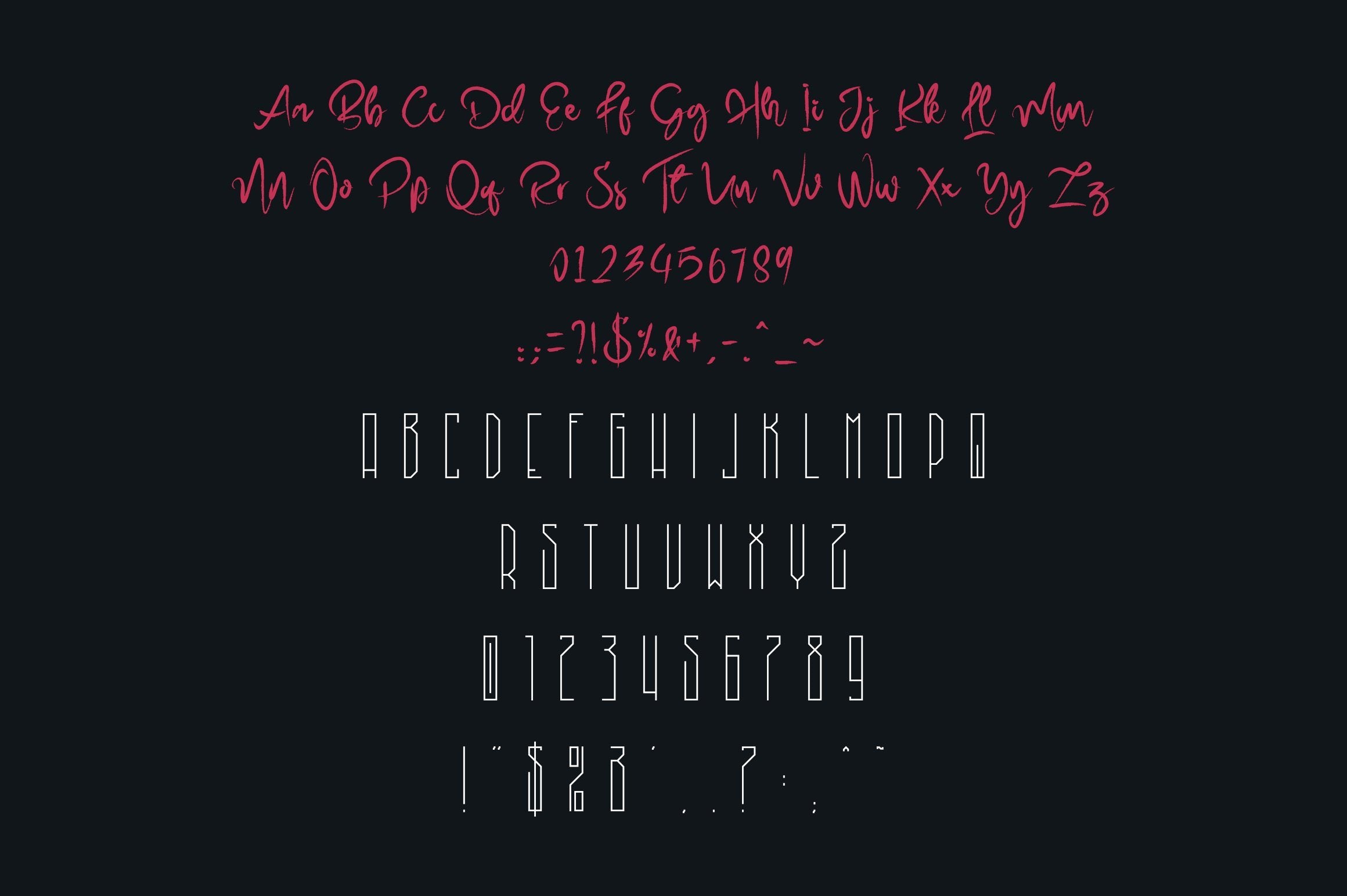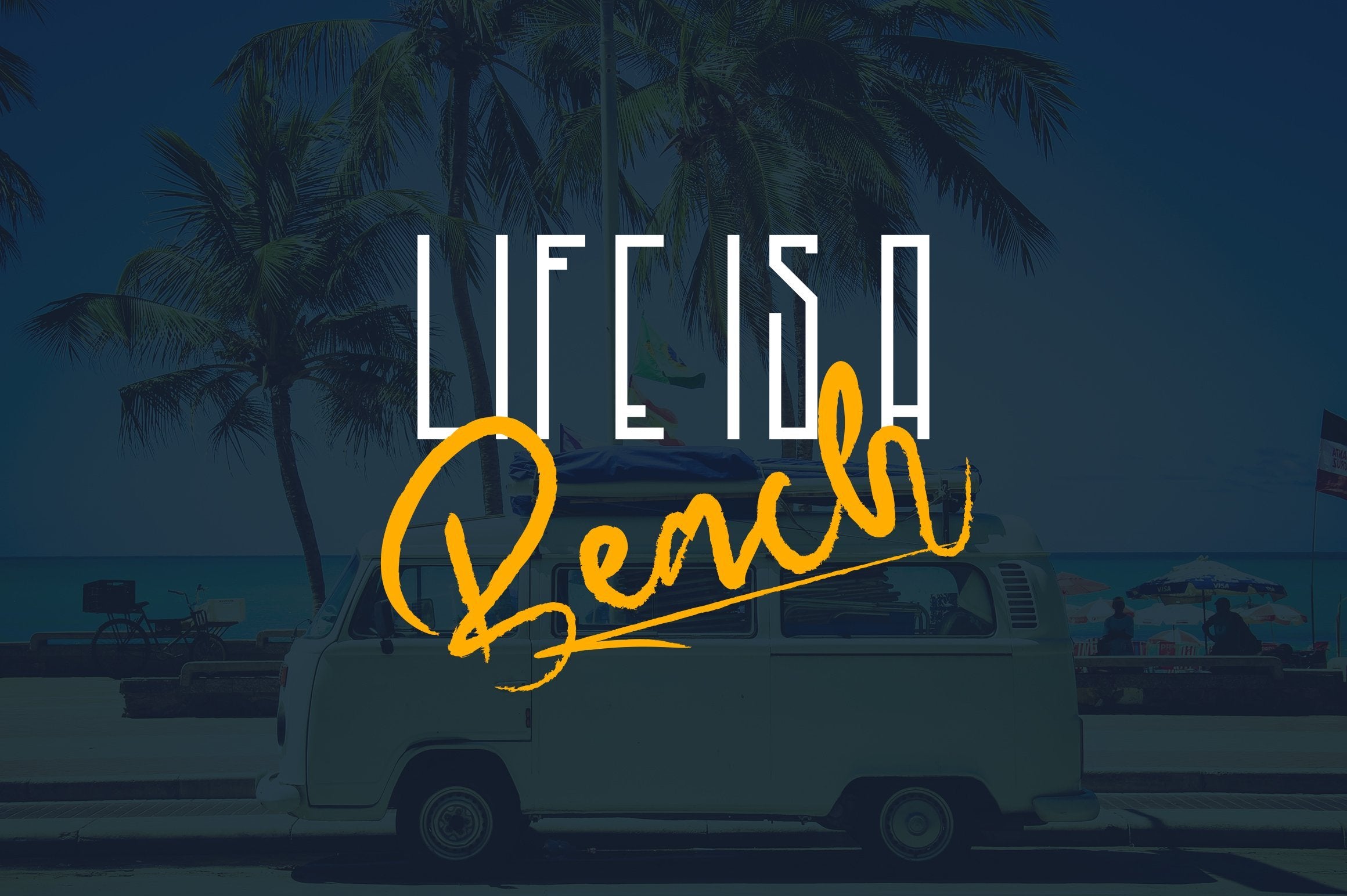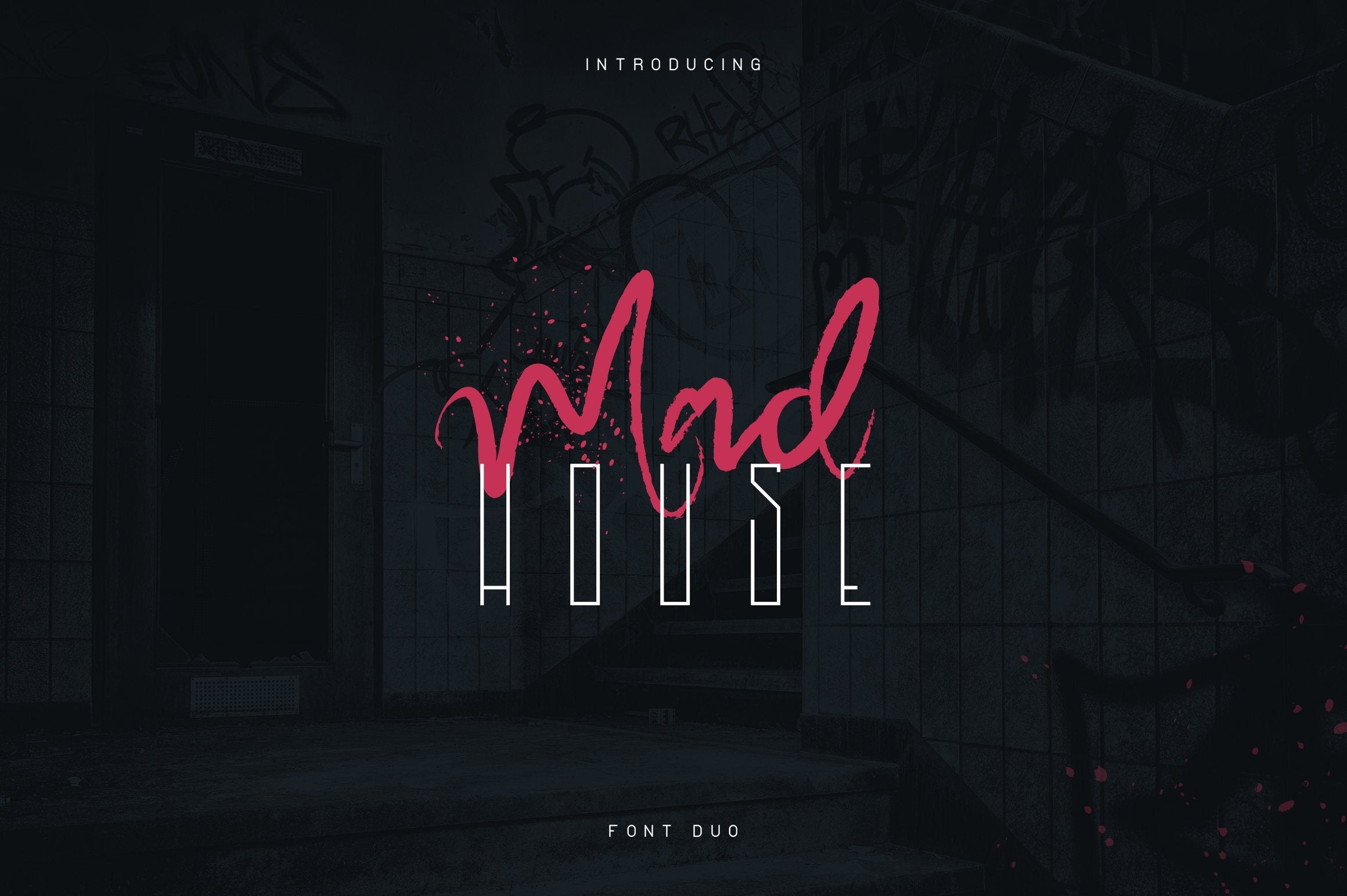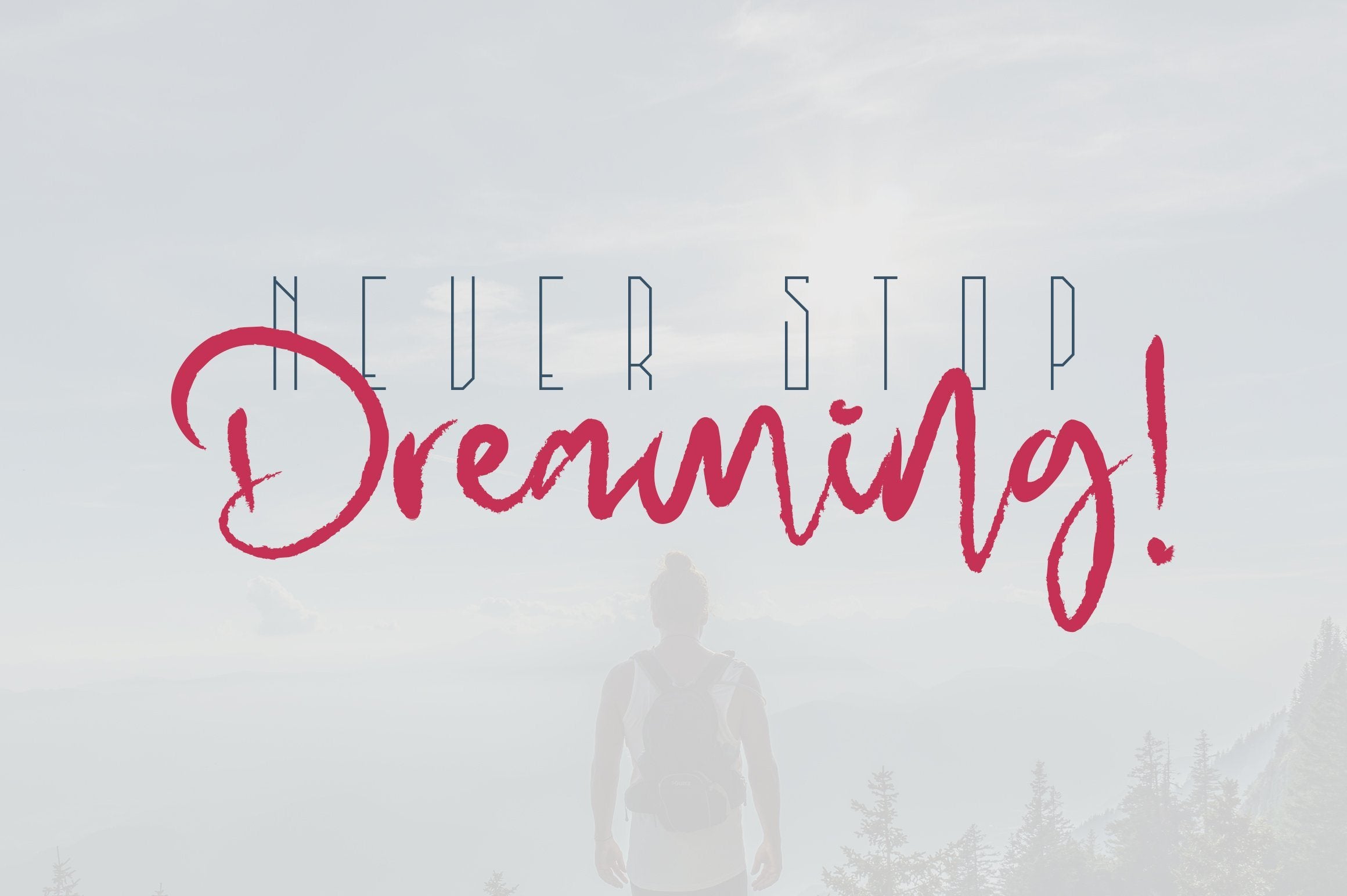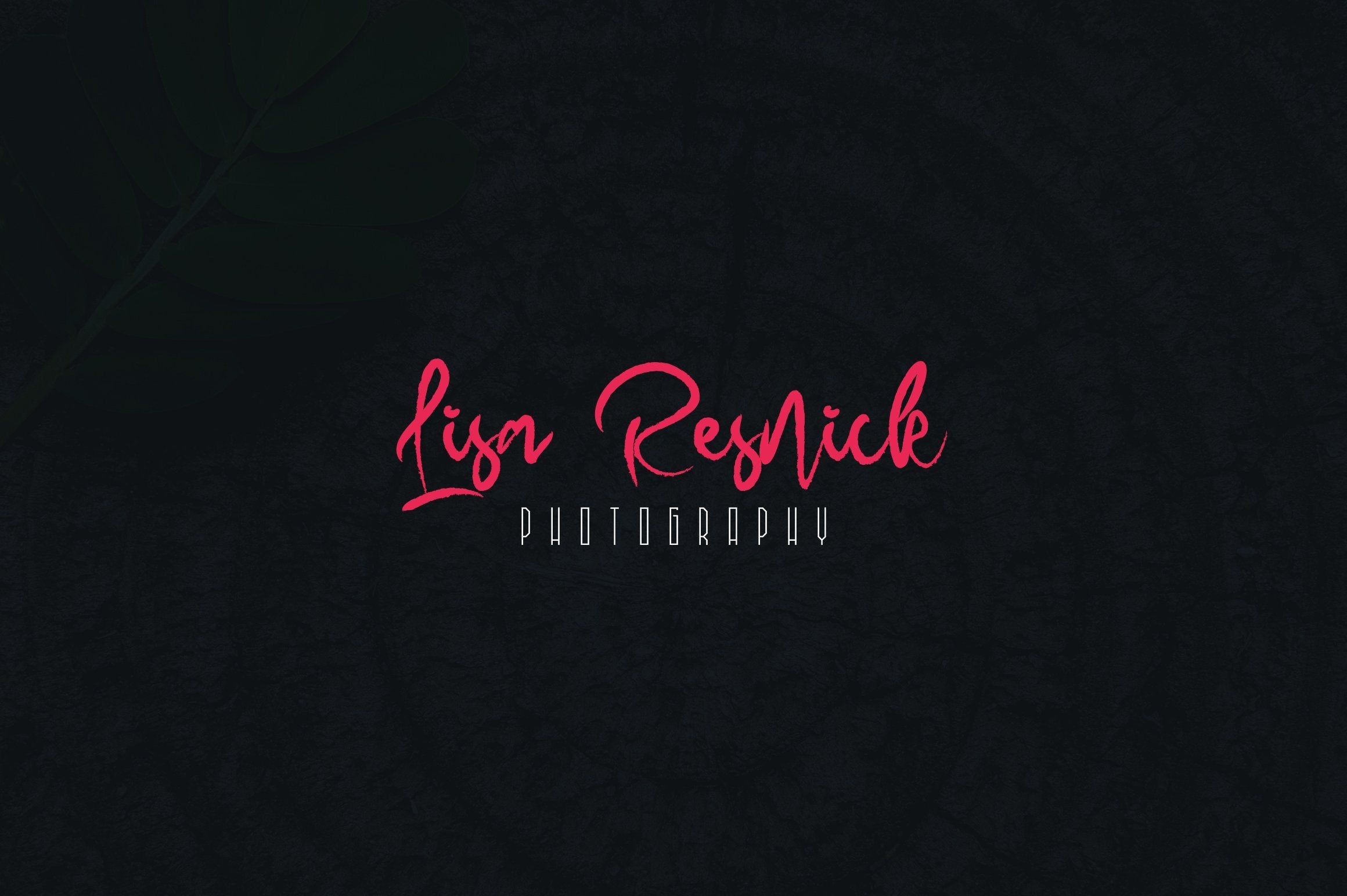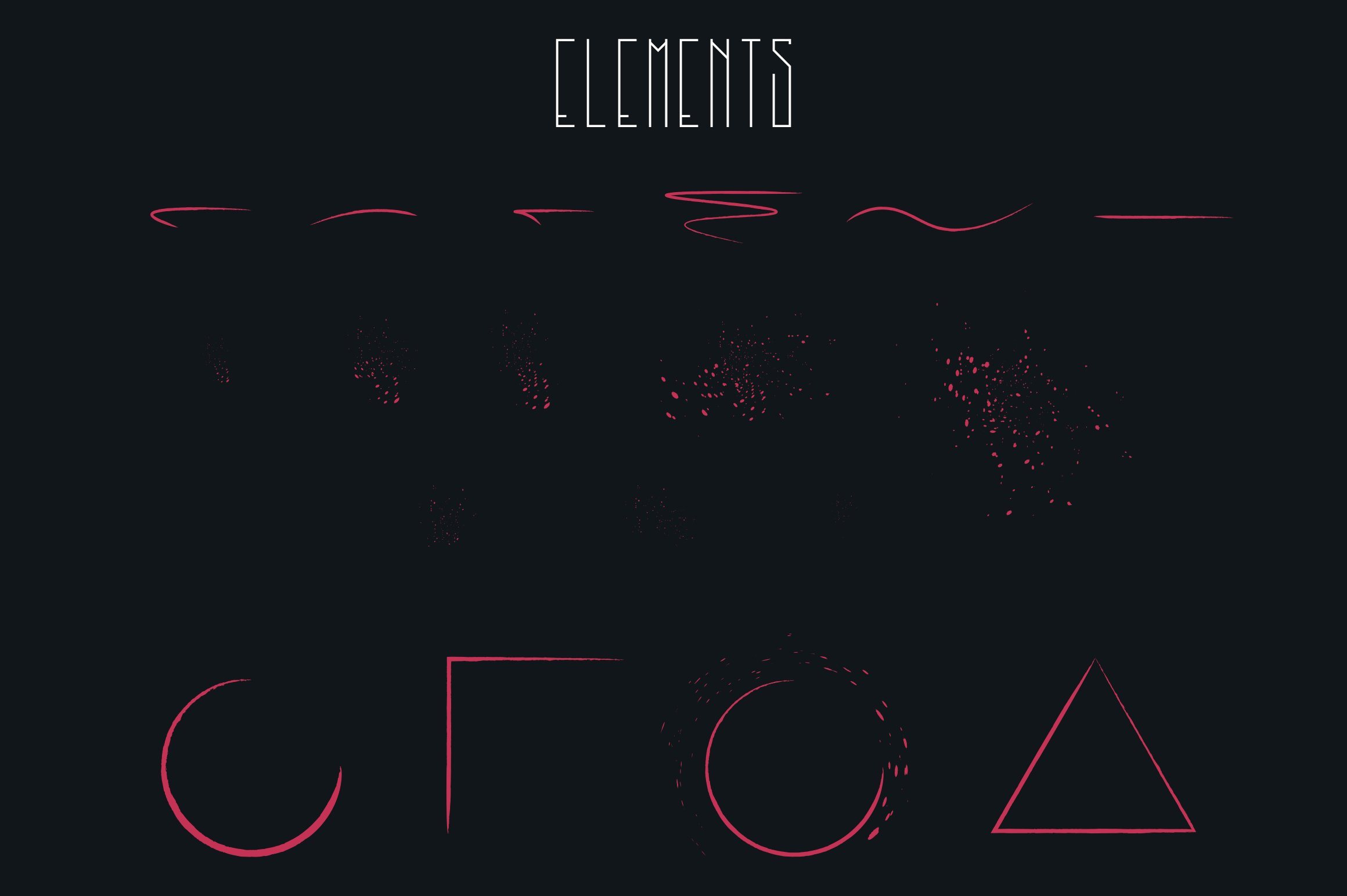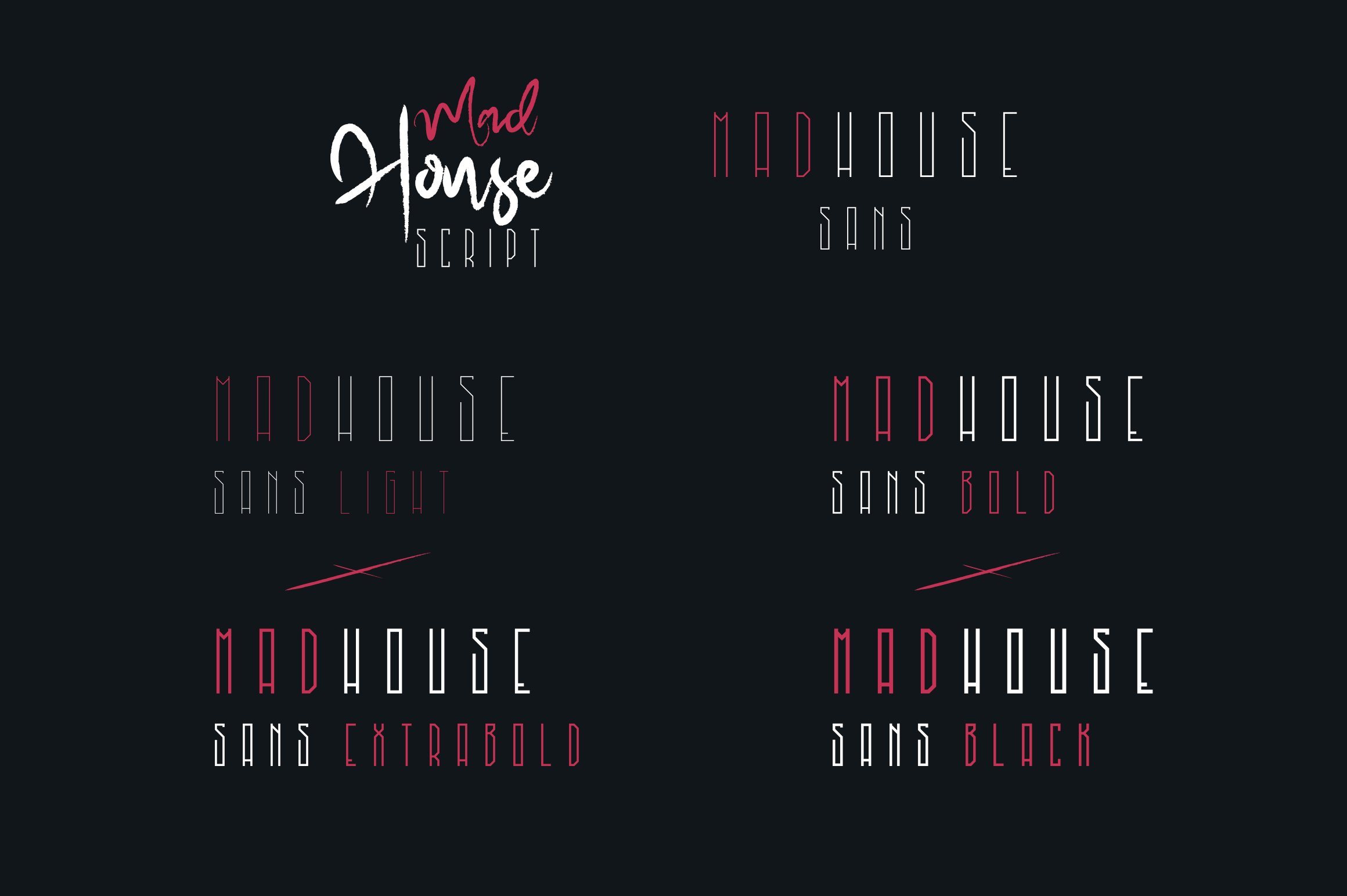
About Madhouse font duo + Extra
Madhouse font duo Madhouse is clean, long sans serif typeface with 5 weights and script font, elements and multilingual support. It’s a very versatile font that works great in large and small sizes. Horizon is perfect for branding projects, home-ware designs, product packaging, magazine headers – or simply as a stylish text overlay to any background image. Uppercase,lowercase,numeral,punctuation & Symbol Multilingual Sans – Light, Regular, Bold, Extrabold, Black Script Vector elements Feel free to contact me if you have any questions! Mock ups and backgrounds used are not included! Thank you! Enjoy!